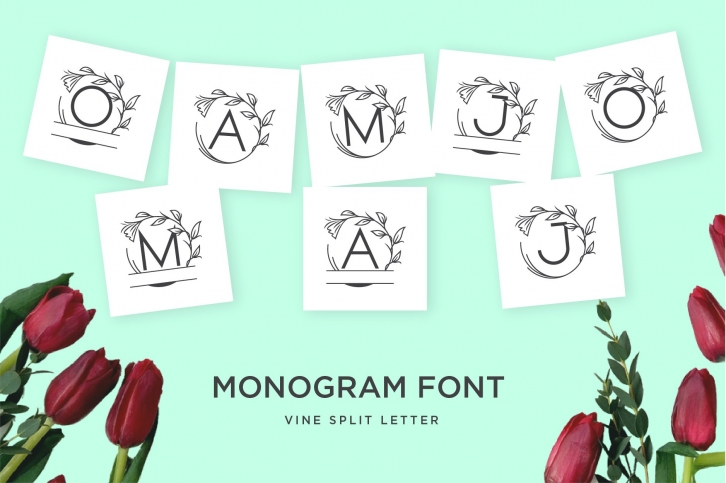
monogram vine letter for crafter is a great font that was designed by Skillyas std. Imagine the amount of combinations you can create using this font! The archive is 19.4 MB and it was released on April 1, 2021. monogram vine letter for crafter looks beautiful on wedding invitations, greeting cards, logos, posters, labels, t-shirt designs, logos, business cards and is perfect for use in ink or watercolor works, fashion, magazines, packaging and food menus, children's books and more!